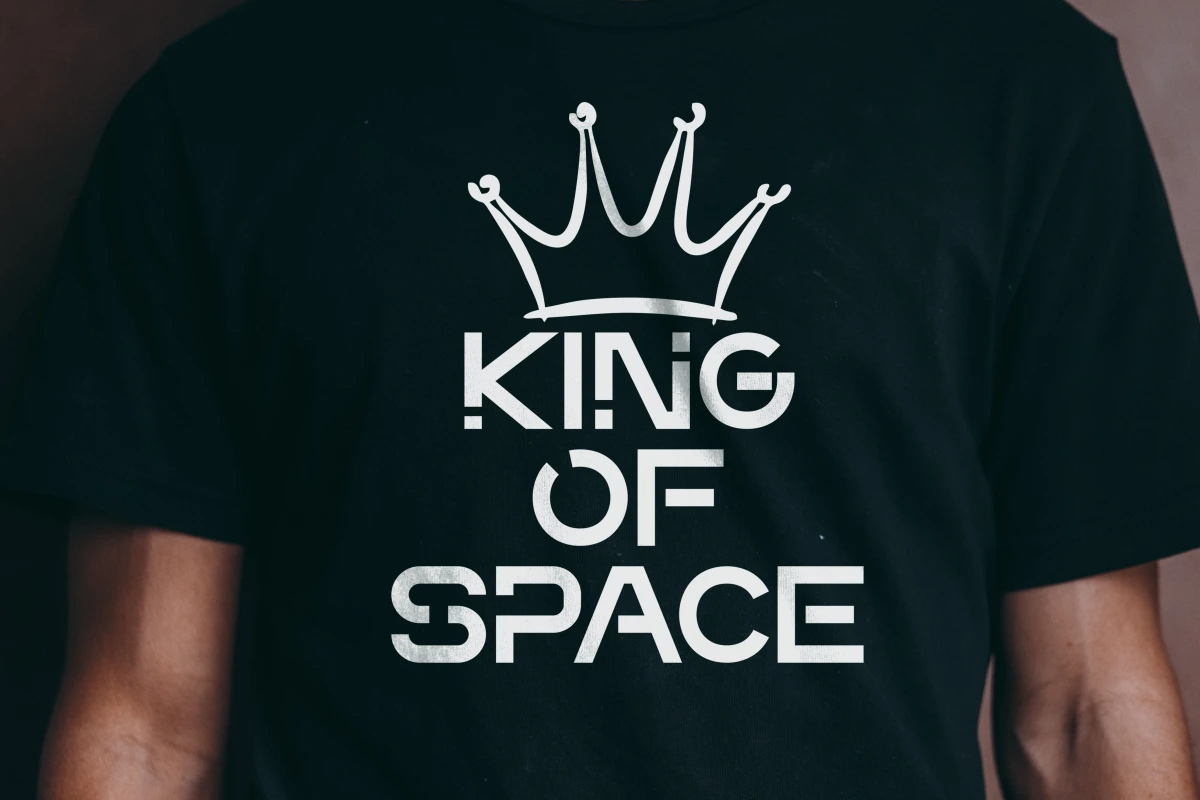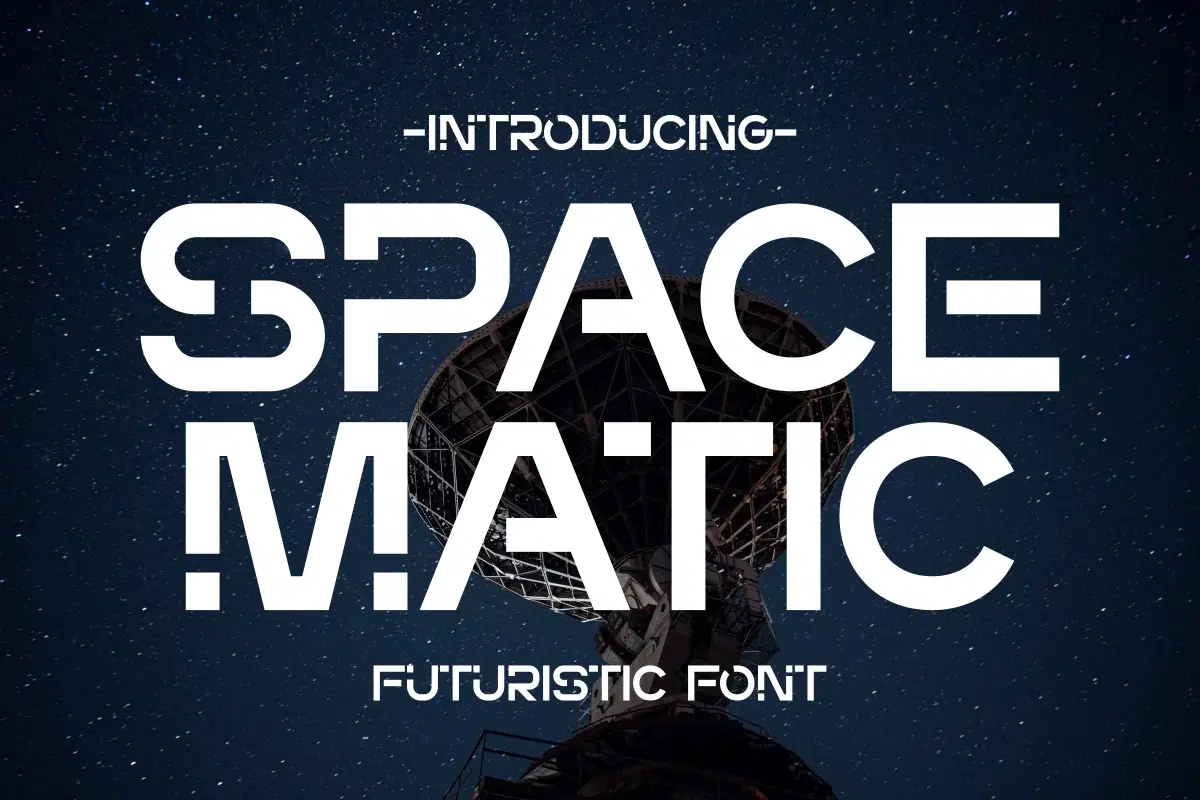
Space Matic - Futuristic Font
Introducing Space Matic — a sleek futuristic display font inspired by technology, space exploration, and modern innovation. With its bold geometric shapes and clean precision, Space Matic brings a forward-thinking edge to your designs. Perfect for sci-fi posters, tech branding, UI headlines, gaming titles, and digital artwork. Designed to make your typography stand out with confidence and clarity — a perfect choice for creatives who think ahead of time.